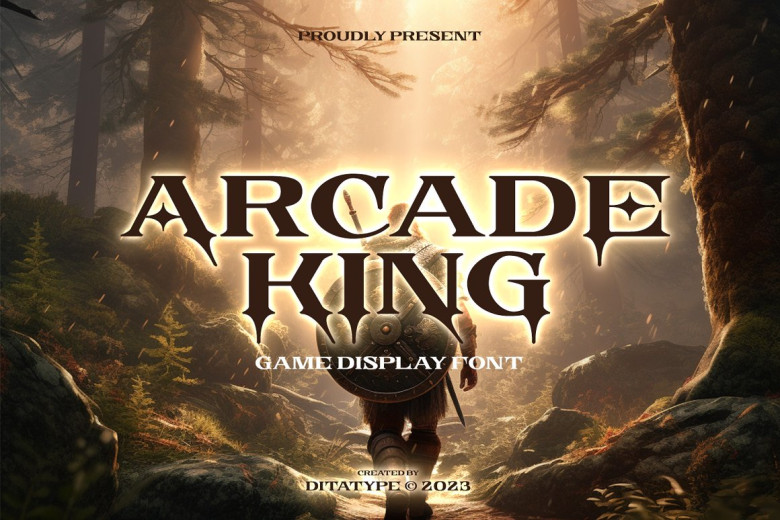
Arcade King Font
Arcade King font is an exciting display inspired by arcade classics, designed in uppercase letter sizes to capture retro gaming’s nostalgic spirit and easily accessible letter sizes for easy reading while immersing users into gaming environments. Arcade King features balanced proportions creating harmony and balance throughout its design ensuring visual cohesion for an enjoyable reading experience.
This design decision ensures that each character complements one another to create an aesthetically pleasing typographic composition. The contrast between thick and fine strokes makes each letter more visible in smaller sizes, and gives the font an exciting and dynamic aesthetic reminiscent of arcade games. Here are its features.